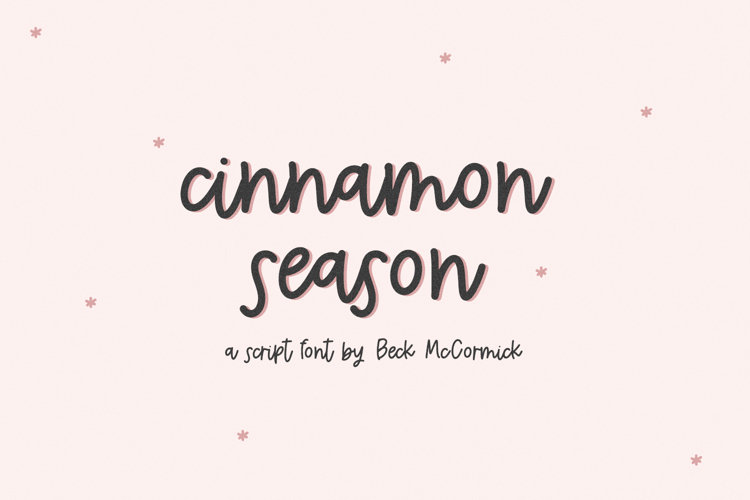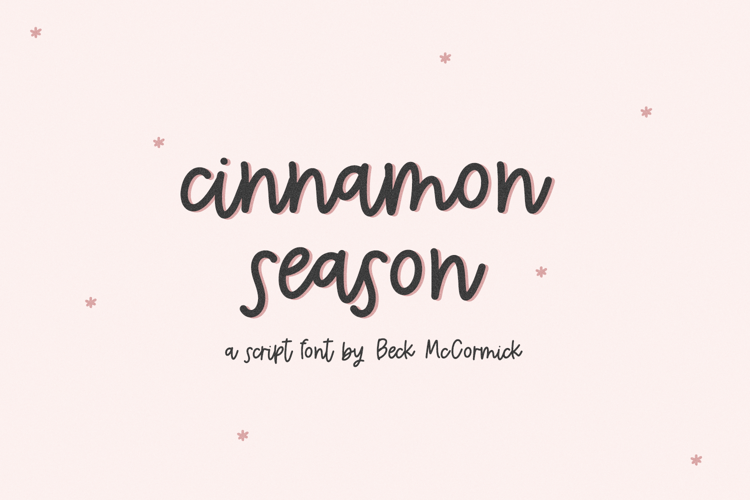
Cinnamon Season Script
Cinnamon Season Script is a cute handwriting font. This script font is neat & tidy, which makes it perfect for logos & branding, greeting cards, painted banners, digital planners, note-taking apps, Canva, Cricut projects, Silhouette projects, designing SVG files, laser cutting projects, & more.